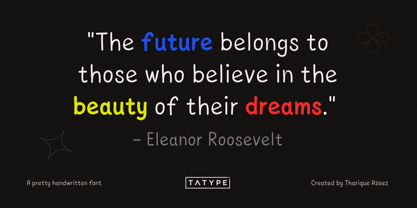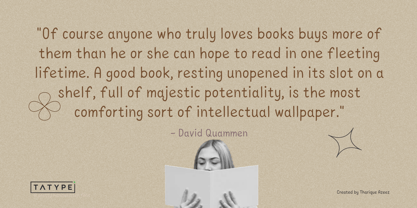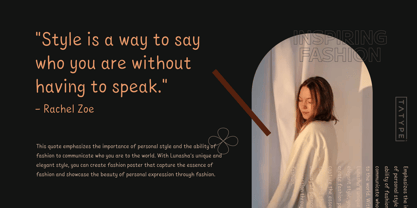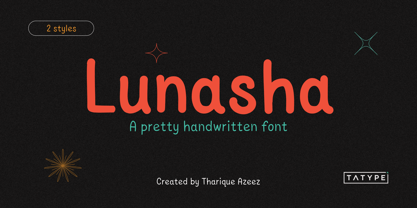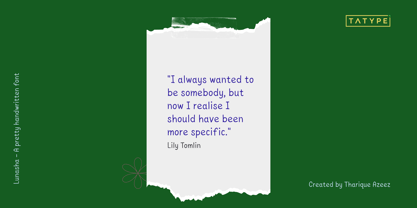
Lunasha
von TaType
Die Schriftfamilie Lunasha wurde von Tharique Azeez entworfen und von TaType veröffentlicht. Lunasha enthält 2 Stile und Familienpaketoptionen. Mehr über diese Familie
Introducing Lunasha, a beautiful and elegant handwriting font designed to elevate your creative projects. With its delicate curves and flowing lines, Lunasha infuses sophistication and charm into any design.
This versatile font is perfect for invitations, greeting cards, logos, and more, allowing you to craft stunning visuals effortlessly. Its unique style and meticulous attention to detail distinguish it from other handwriting fonts, making it an essential addition for designers and creatives alike.
Whether you're a professional designer or a DIY enthusiast, Lunasha is the ideal font for all your creative endeavours.
Designer: Tharique Azeez
Foundry: TaType
TaType is a digital type foundry dedicated to the evolution and elevation of Indic scripts, with a primary focus on contemporary Tamil typography. Driven by a passion for cultural preservation and modern aesthetics, TaType aims to provide designers with versatile typographic tools that balance calligraphic heritage with pixel-perfect technical precision. The foundry’s design philosophy centers on the belief that traditional scripts should flourish in modern digital environments without losing their organic soul. By exploring the intersection of rhythmic handwriting and structured geometric forms, TaType creates typefaces that offer high legibility and a distinct human touch. We are committed to expanding the typographic landscape for South Asian languages, ensuring that global designers have access to expressive, professional-grade tools that honour linguistic nuance while meeting the demands of global branding, editorial design, and user interfaces.